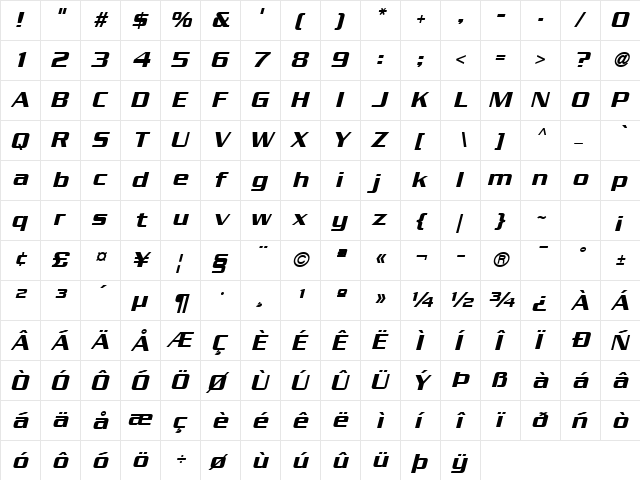
Serpentine Sans ICG Oblique
Design Context for Serpentine Sans ICG Typeface
Serpentine Sans ICG offers clean, dependable letterforms without strong stylistic allegiance, making it a practical choice for designers who need flexibility. Its italic angle brings a sense of urgency and motion to the letterforms.
Pro Tip: Try Serpentine Sans ICG for annotation and caption copy alongside an upright companion — the contrast in angle creates a dynamic but ordered typographic system.